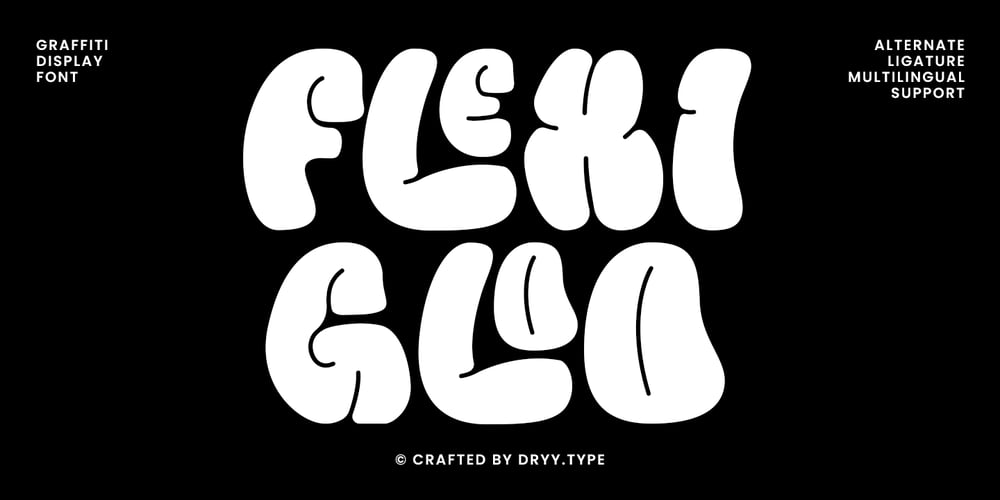
Flexi Gloo Font Family was designed by Rian Dryana and published by Dryy Type. Flexi Gloo contains 1 styles and family package options. Flexi Gloo FontA display typeface that has a bubble character and graffiti theme font to work with.The Flexi Gloo font is, as the name suggests, a hypebeast and unique display font. This font I’ve created has been in heavy use this year & is very versatile, goes well with a variety of designs, elevating it to the highest level. Add this font to your favorite creative ideas and see the results!Features: Single Case, alternate, ligature & multilingualThere it is! I really hope you enjoy it